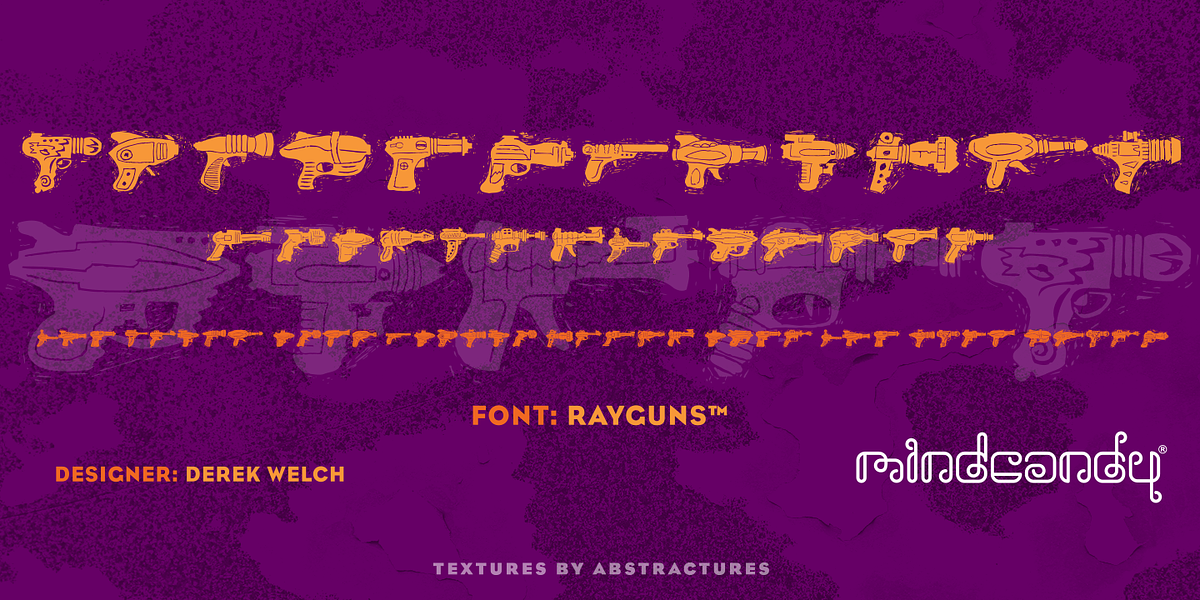
Rayguns™
This dingbat font features rough woodcut-style icons and is perfect for adding a sci-fi aesthetic to designs. It's ideal for use as design elements or illustrations.